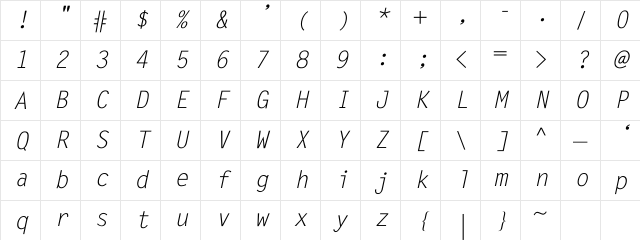
MonospacedItalic uses fixed-width spacing throughout, giving it the structured, systematic character associated with coding environments and technical documentation. The slanted form adds forward momentum and visual energy.
Pro Tip: Use MonospacedItalic with slightly increased line-height for extended reading - fixed-width spacing can feel dense in longer passages without extra breathing room.